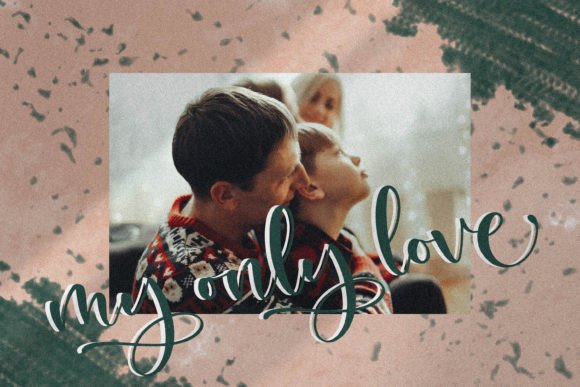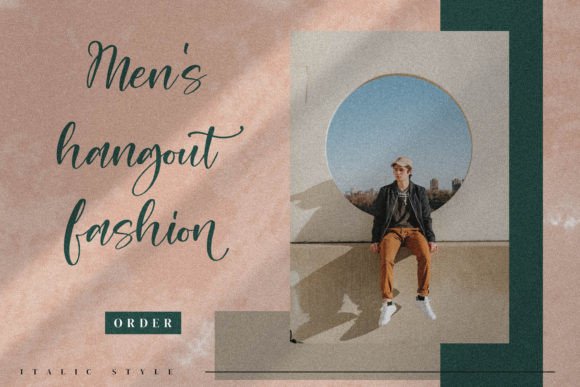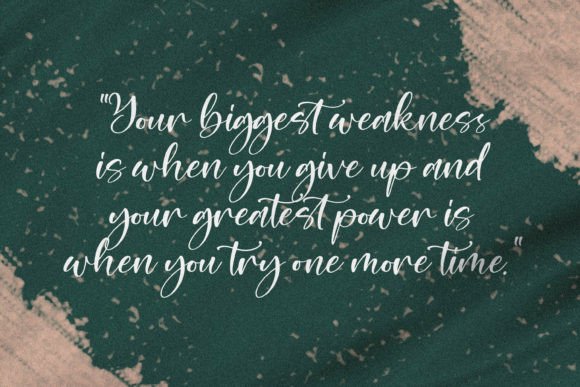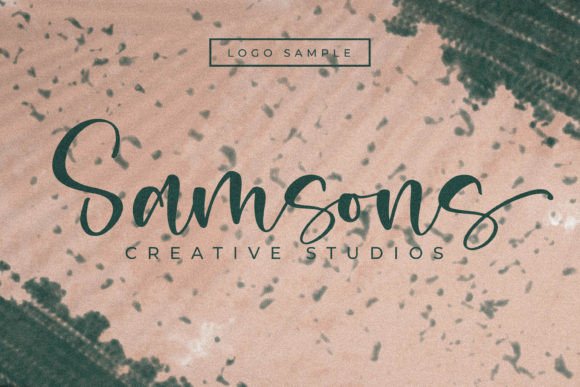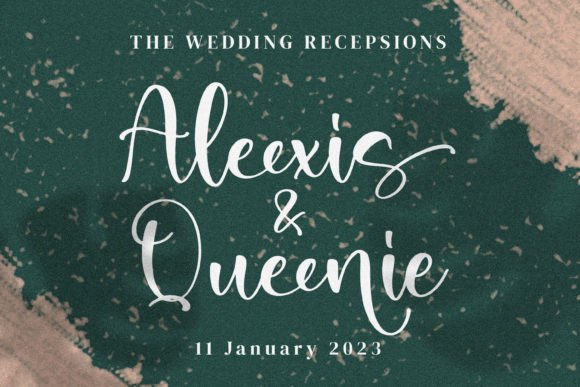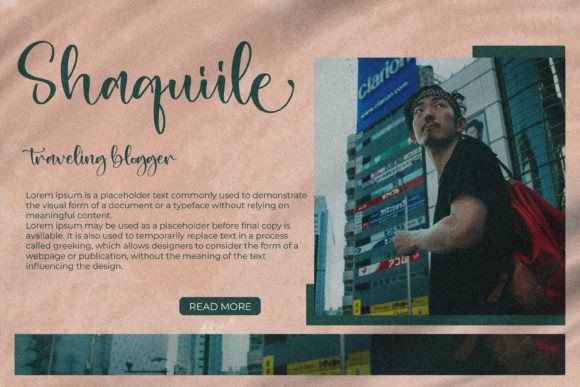
Introducing Abigail Font: The Sweet and Delicate Handwritten Font for Romantic Designs
Are you a designer or crafter looking for a font that can add a touch of romance and personality to your designs? Look no further than Abigail Font, a sweet and delicate handwritten font that’s perfect for creating beautiful wedding invitations, cards, and other designs that require a personal touch.
What Makes Abigail Font Special?
Abigail Font is a unique and charming font that’s designed to bring a sense of joy and elegance to your designs. Its dainty and delicate strokes make it ideal for creating romantic and feminine designs that will capture the hearts of your audience. Whether you’re designing wedding invitations, greeting cards, or other paper crafts, Abigail Font is the perfect choice.
Key Features of Abigail Font
- Sweet and delicate handwritten font: Abigail Font is a carefully crafted font that’s designed to mimic the look of handwritten writing. Its sweet and delicate strokes make it perfect for creating romantic and personalized designs.
- Dainty and joyful: This font is characterized by its dainty and joyful strokes that will add a touch of whimsy and elegance to your designs.
- Ideal for wedding invitations and cards: Abigail Font is specifically designed for creating beautiful wedding invitations, cards, and other paper crafts that require a romantic and personalized touch.
- Perfect for designers and crafters: Whether you’re a professional designer or a crafter, Abigail Font is the perfect choice for anyone looking to add a touch of elegance and sophistication to their designs.
How to Use Abigail Font in Your Designs
Abigail Font is easy to use and can be incorporated into a variety of designs, including:
- Wedding invitations: Create beautiful and romantic wedding invitations that will set the tone for the big day.
- Greeting cards: Design personalized greeting cards for special occasions, such as birthdays, anniversaries, and holidays.
- Paper crafts: Use Abigail Font to create beautiful paper crafts, such as scrapbook pages, journal entries, and other DIY projects.
- Digital designs: Incorporate Abigail Font into your digital designs, such as social media graphics, blog posts, and email newsletters.
Tips for Getting the Most Out of Abigail Font
Here are a few tips for getting the most out of Abigail Font:
- Pair with complementary fonts: Pair Abigail Font with complementary fonts to create a unique and visually appealing design.
- Experiment with colors: Experiment with different colors and textures to add depth and interest to your designs.
- Use in combination with graphics: Use Abigail Font in combination with graphics and illustrations to create a beautiful and cohesive design.
Abigail Font is a beautiful and delicate handwritten font that’s perfect for designers and crafters looking to add a touch of romance and personality to their designs. With its sweet and dainty strokes, this font is ideal for creating beautiful wedding invitations, cards, and other paper crafts. Whether you’re a professional designer or a crafter, Abigail Font is a must-have font that will help you create stunning designs that will capture the hearts of your audience.